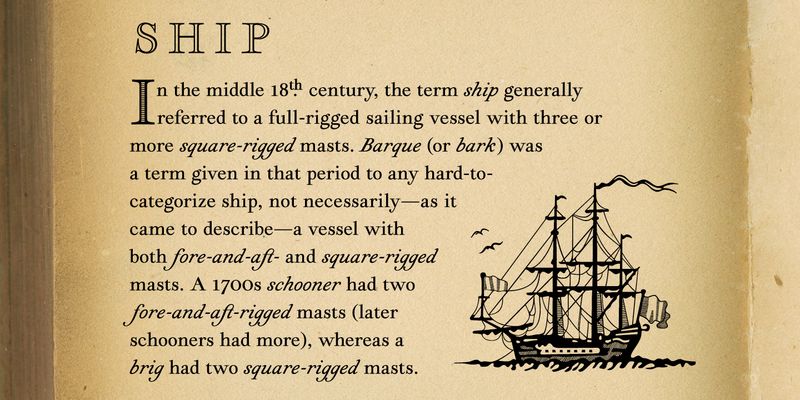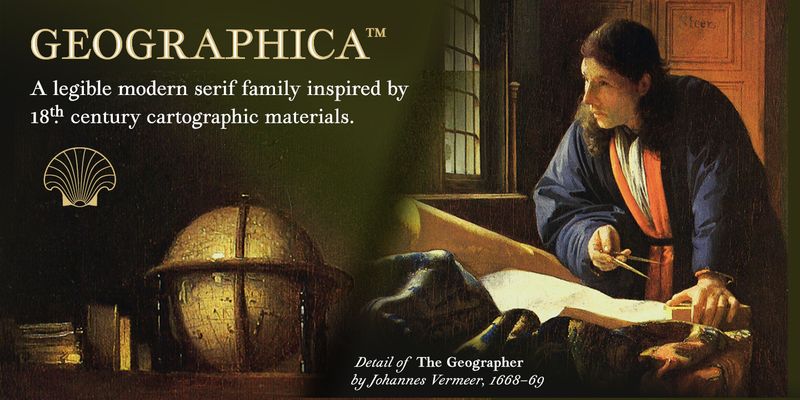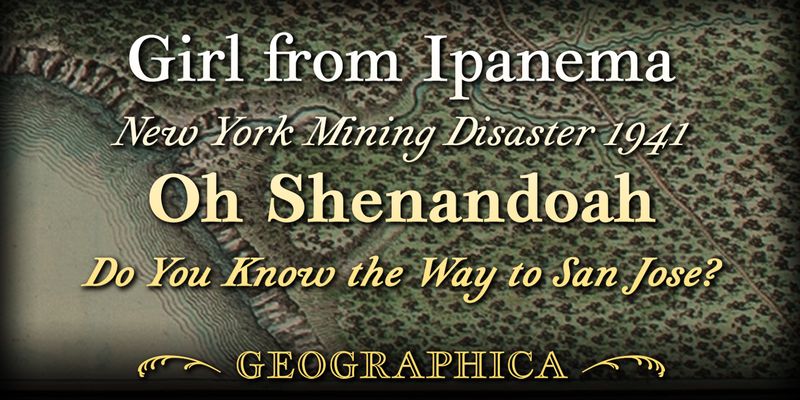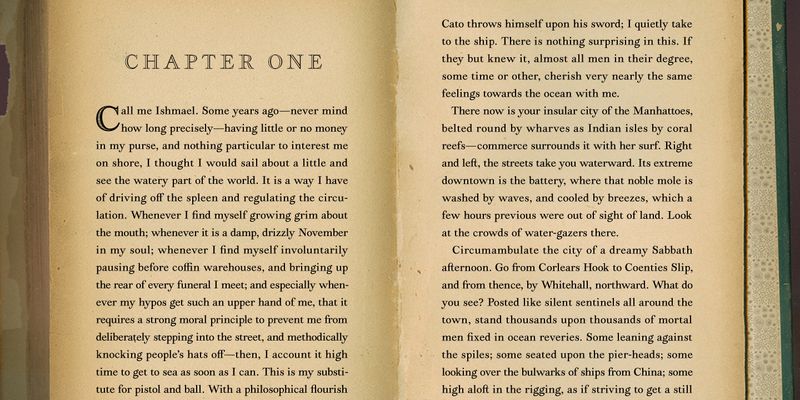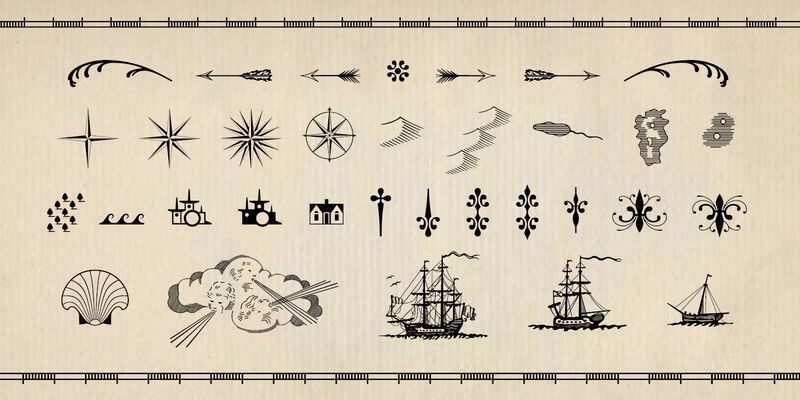
The Geographica™ family was inspired by the neat, hand-lettered text on the 1700s maps of Thomas Jefferys, Geographer to King George III. All four styles have scores of old cartographic ornaments.